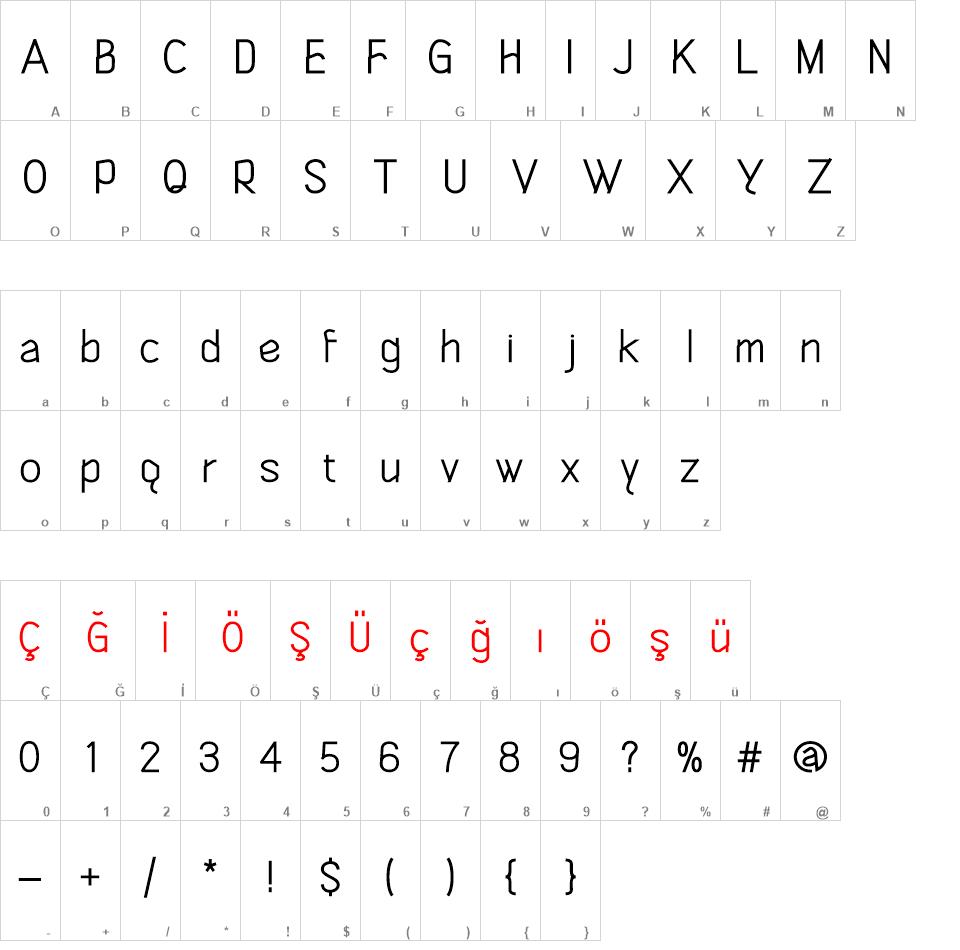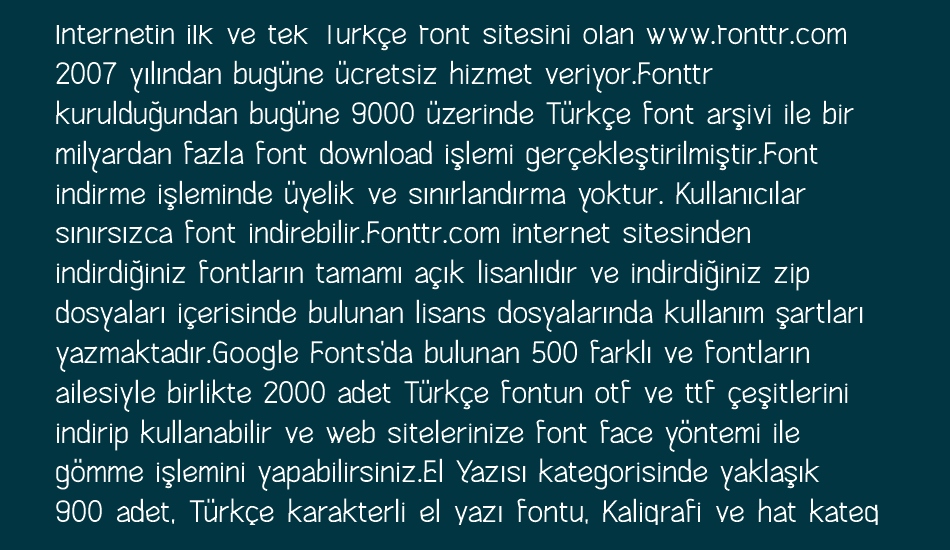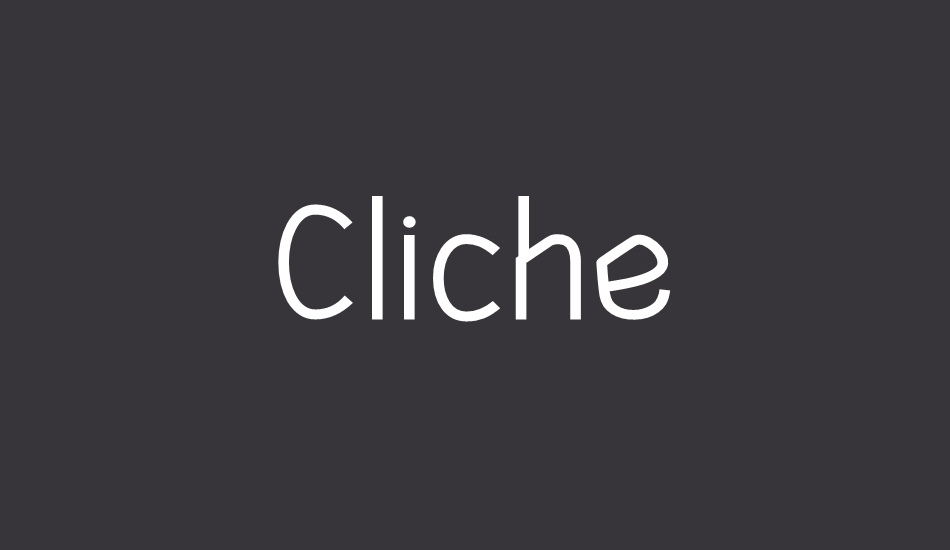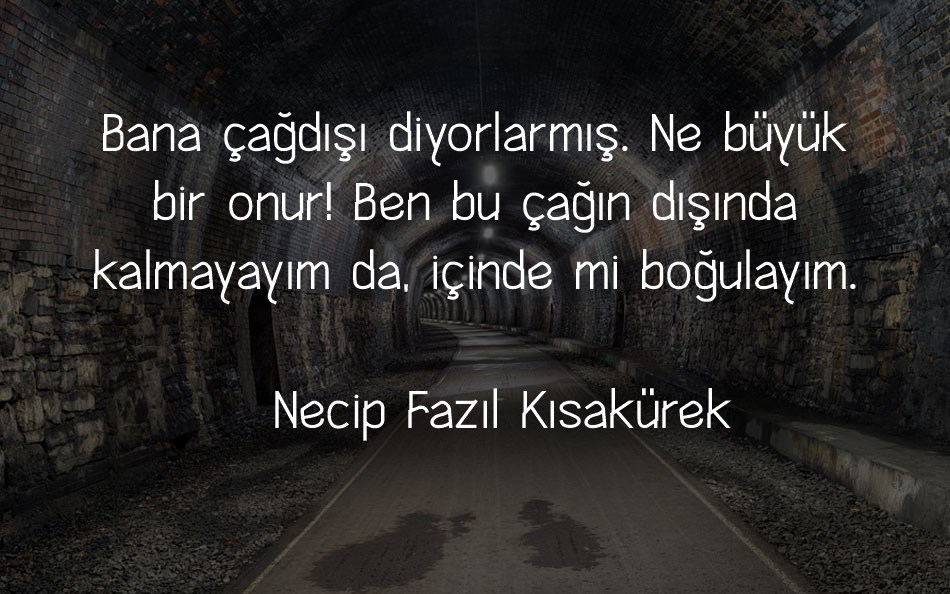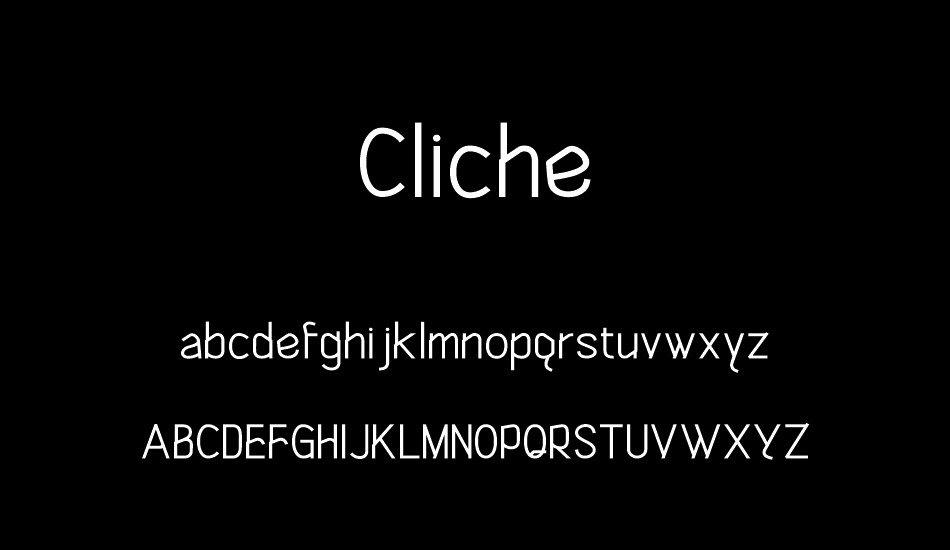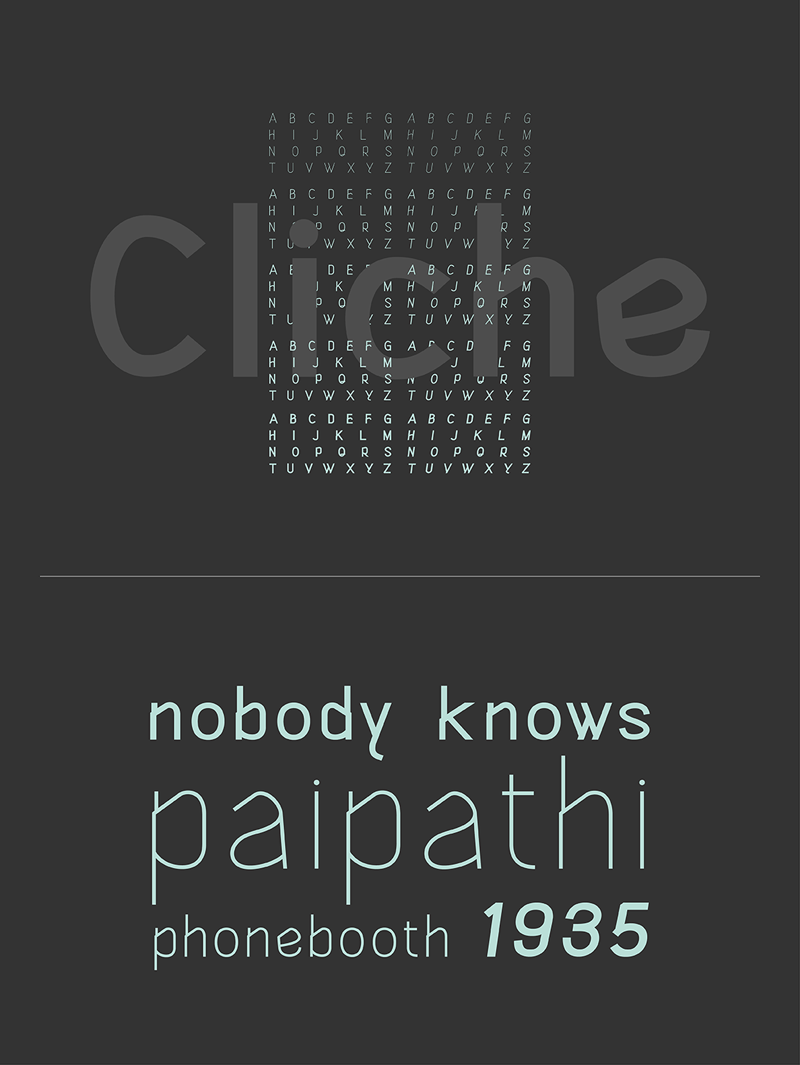
Cliche font
Cliche
This is another cliche ish typeface, yet it has subtle and unique lines which deviates from the perfect straight line. Cliche is very versatile and good for any purpose such as logo, headline and body text.
It's coming with 10 weights including 5 italics.
337 glyphs, kerning and 55 languages supported.